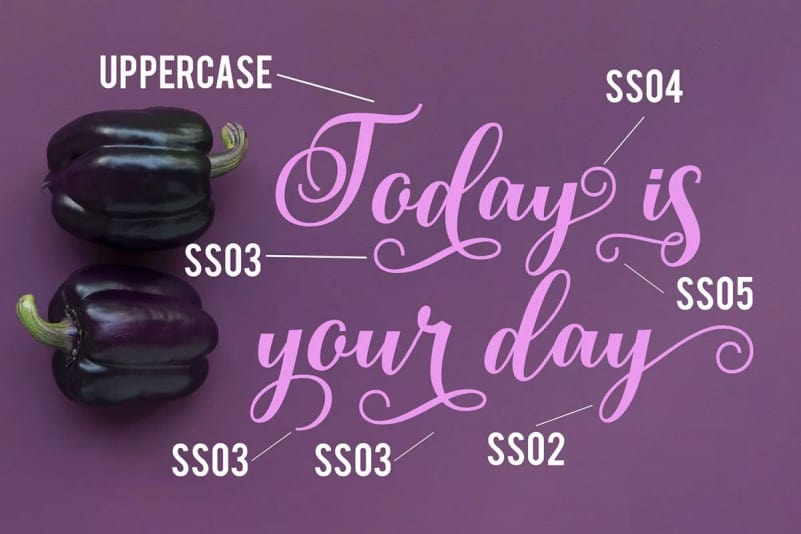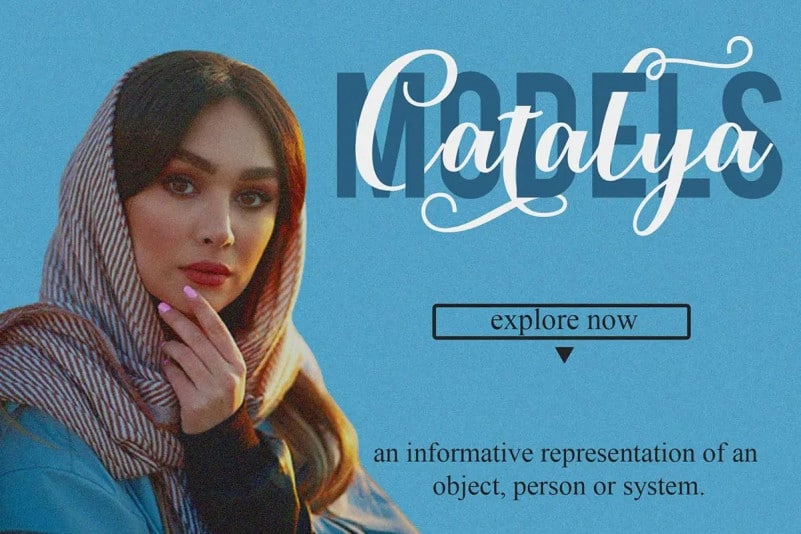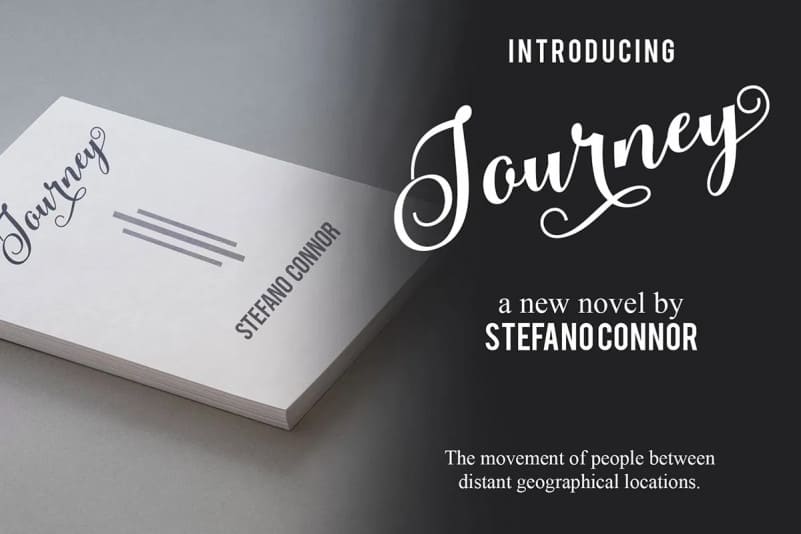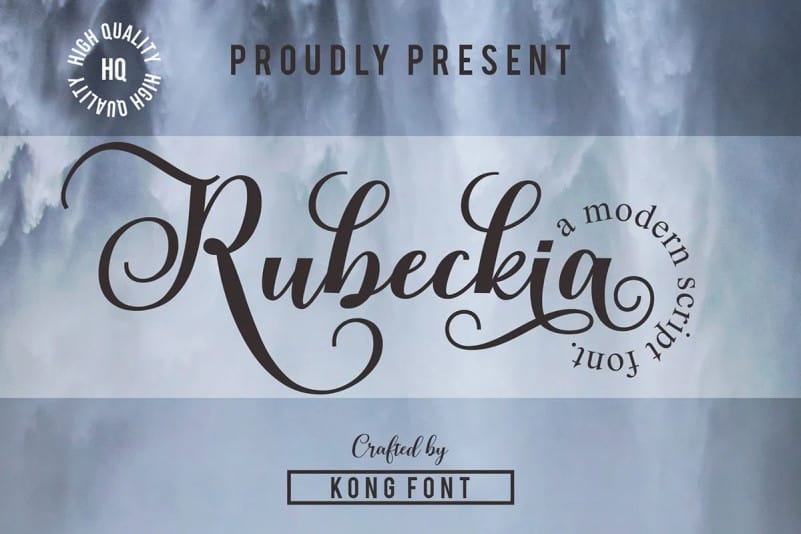
Glad to introduce you a new Rubeckia Calligraphy Font, a handwritten calligraphy script with smooth lines, beautiful flow, and lovely alternates. Made from font designer named fontkong. Rapstomer includes alternates letters, ligatures and International support for most of the included Western Languages. It can be used for various purposes such as titles, signatures, logos, correspondence, letterheads, signage, labels, newsletters, posters, badges.